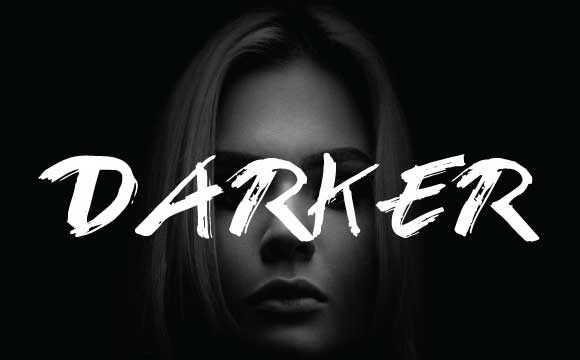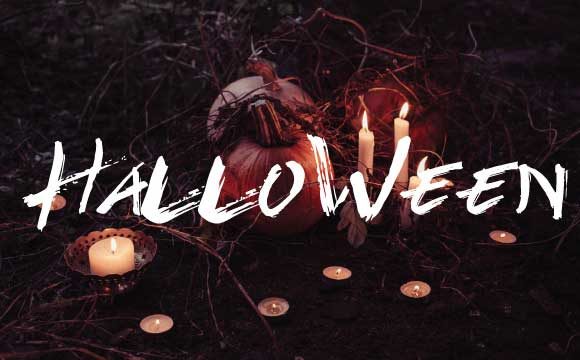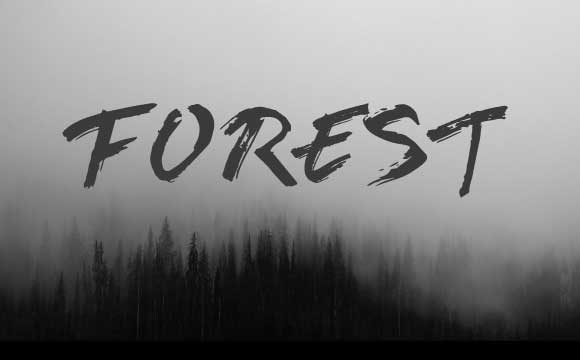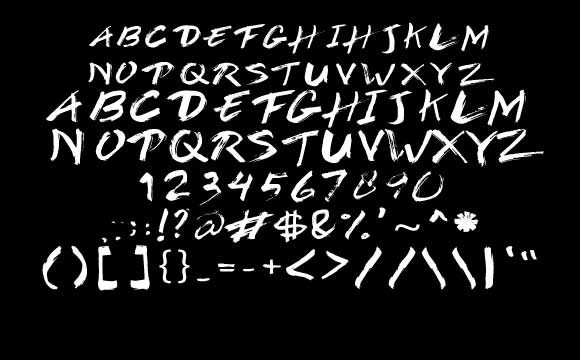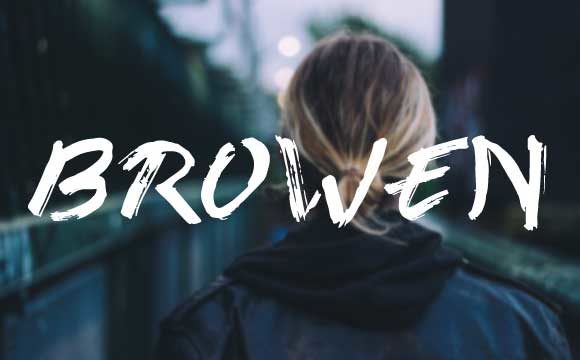
Browen Font: A Bold and Rough Script for Designers and Crafters
In the world of typography, fonts play a crucial role in conveying the tone and personality of a brand or design. For designers and crafters looking for a unique and eye-catching script, Browen Font is an excellent choice. Browen is a bold and rough script that perfectly combines smooth lettering with a raw aesthetic, making it perfect for a wide range of design applications.
The Unique Characteristics of Browen Font
Browen Font is a one-of-a-kind script that boasts a distinctive blend of smooth and rough elements. The font features bold, rounded letters with a subtle roughness that gives it a hand-crafted feel. This unique combination of characteristics makes Browen Font stand out from other scripts, adding a touch of personality and whimsy to any design.
One of the key features of Browen Font is its versatility. The font is suitable for a wide range of design applications, from branding and advertising to packaging and crafting. Whether you’re looking to create a bold and eye-catching logo or add a personal touch to your craft projects, Browen Font is an excellent choice.
The Benefits of Using Browen Font
So, why should designers and crafters choose Browen Font for their projects? Here are just a few benefits of using this unique script:
- Unique and eye-catching: Browen Font is a bold and attention-grabbing script that is sure to make your designs stand out from the crowd.
- Versatile: The font is suitable for a wide range of design applications, from branding and advertising to packaging and crafting.
- Easy to read: Despite its bold and rough aesthetic, Browen Font is surprisingly easy to read, making it perfect for use in body text as well as headlines.
- Customizable: Browen Font can be easily customized to suit your design needs, from adjusting the font size and style to adding your own unique touches.
How to Use Browen Font in Your Designs
So, how can you incorporate Browen Font into your designs? Here are a few ideas to get you started:
- Logos and branding: Use Browen Font to create a bold and eye-catching logo that perfectly captures the personality of your brand.
- Advertising and marketing: Add a touch of personality to your advertising and marketing materials with Browen Font, perfect for use in headlines and promotional materials.
- Packaging: Use Browen Font to add a personal touch to your packaging designs, from labels and stickers to product packaging and more.
- Crafting: Browen Font is perfect for crafters looking to add a unique and personalized touch to their projects, from scrapbooking and journaling to card making and more.
Tips and Tricks for Working with Browen Font
Here are a few tips and tricks to keep in mind when working with Browen Font:
- Experiment with font sizes: Browen Font looks great in a variety of font sizes, from large and bold to small and subtle.
- Play with color: The bold and rough aesthetic of Browen Font makes it perfect for use with a wide range of colors and textures.
- Add your own touches: Don’t be afraid to add your own unique touches to Browen Font, from subtle texture overlays to creative ligatures.
In conclusion, Browen Font is a bold and rough script that perfectly combines smooth lettering with a raw aesthetic. With its unique characteristics, versatility, and ease of use, Browen Font is an excellent choice for designers and crafters looking to add a touch of personality to their designs. Whether you’re looking to create a bold and eye-catching logo or add a personal touch to your craft projects, Browen Font is sure to inspire.